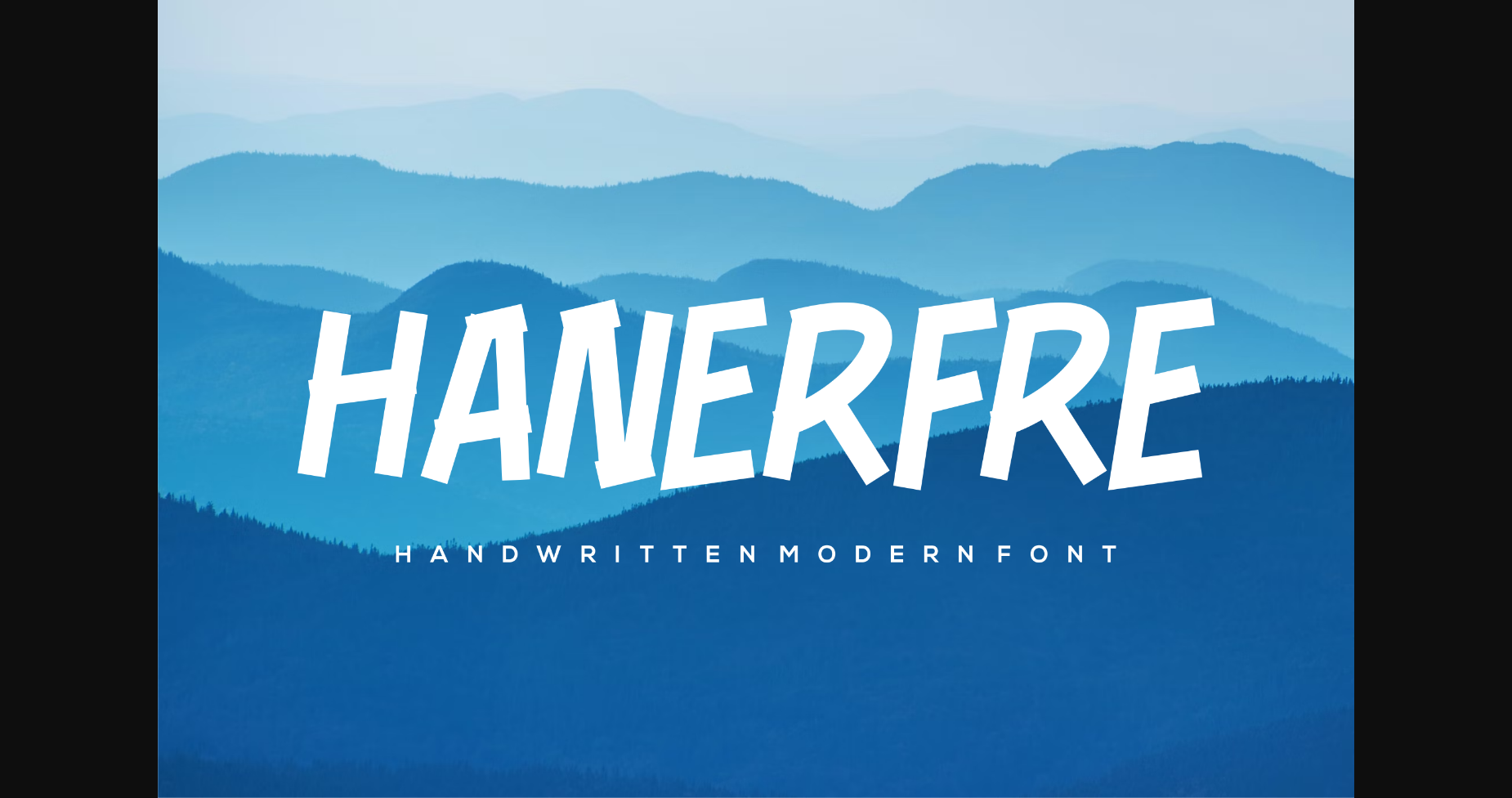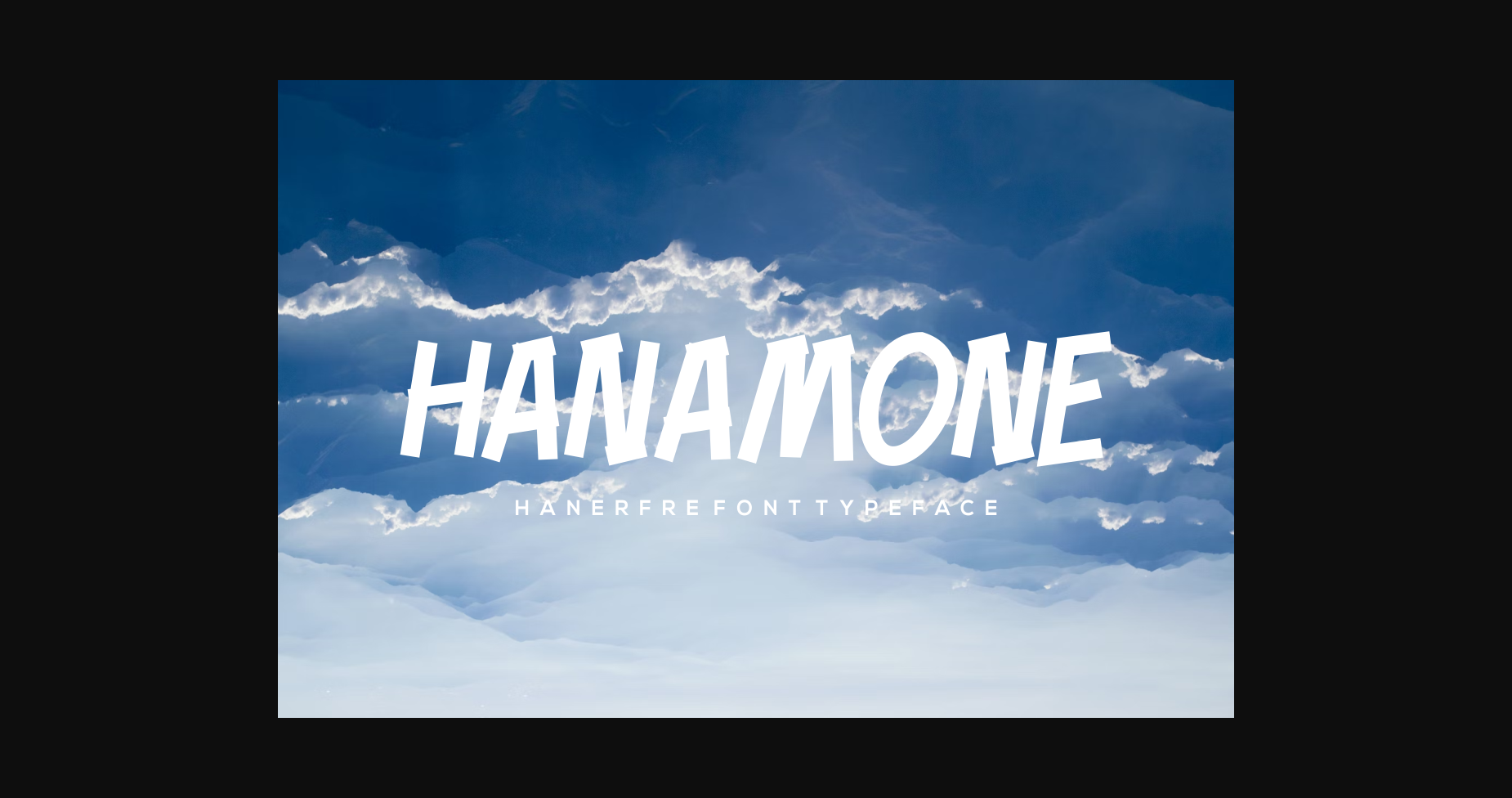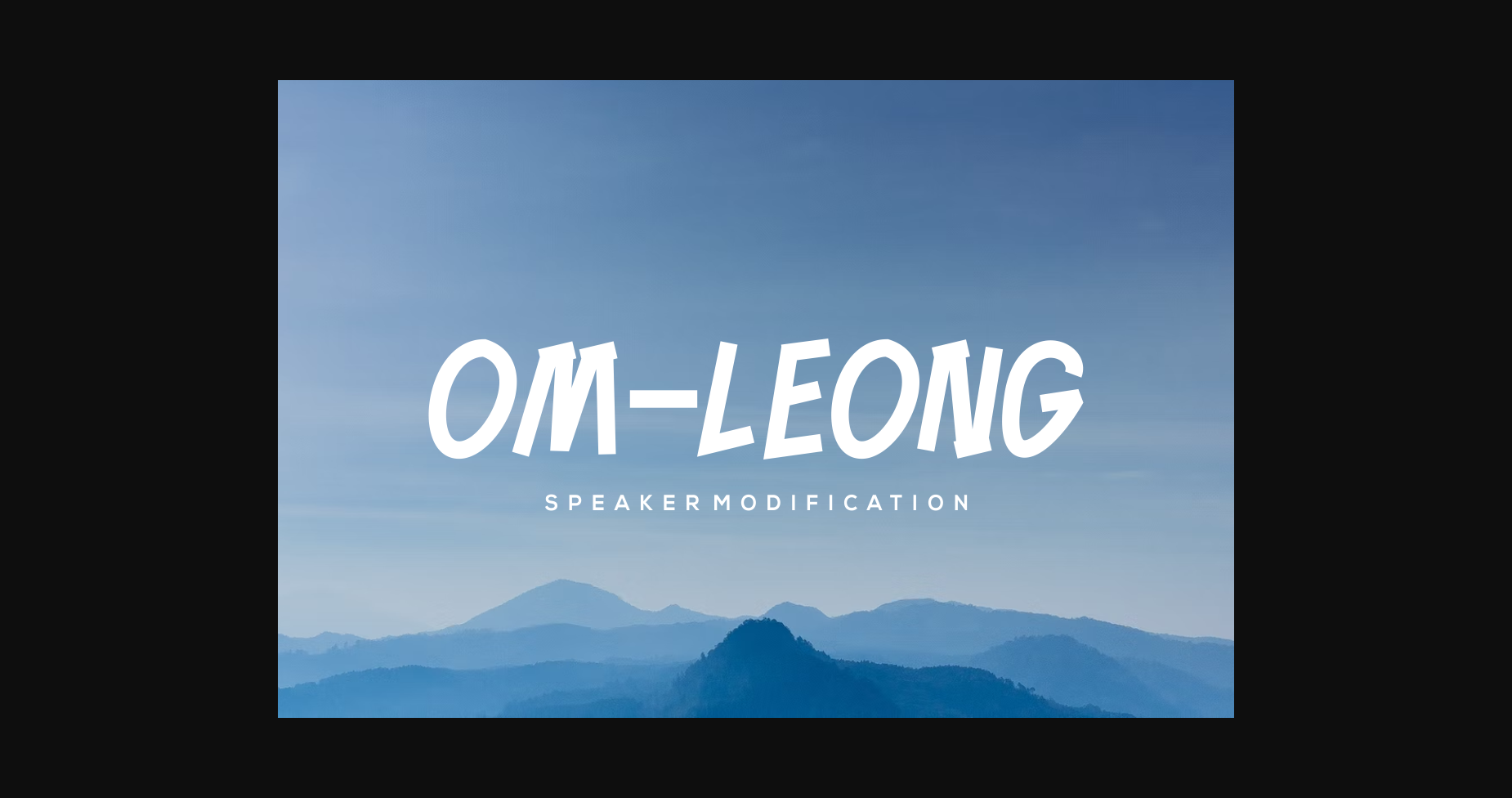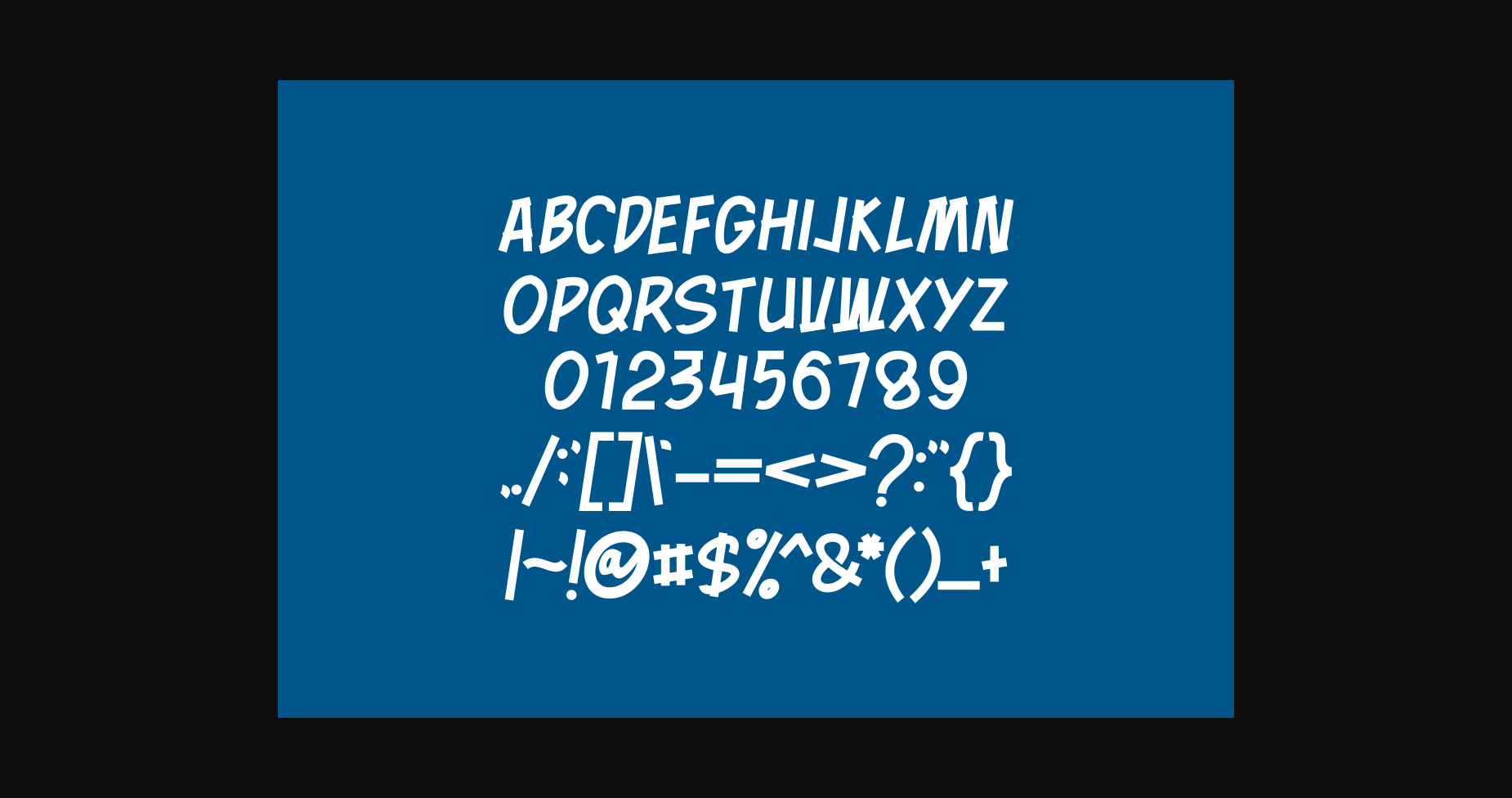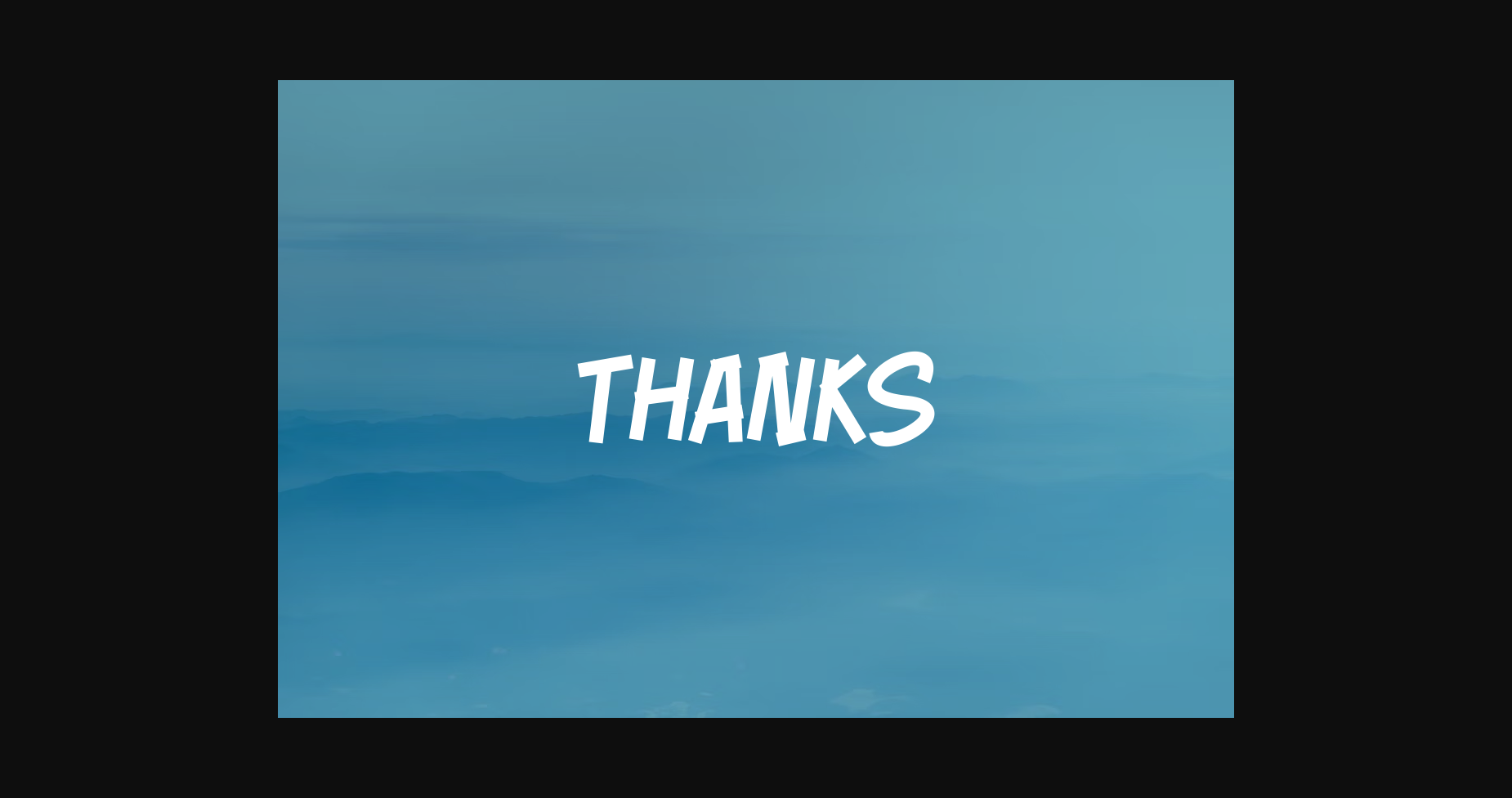
About Hanerfre Font
Hanerfre is casual and neat handwritten sans serif font. Fall in love with its incredibly distinct and timeless style and use it to create spectacular designs!